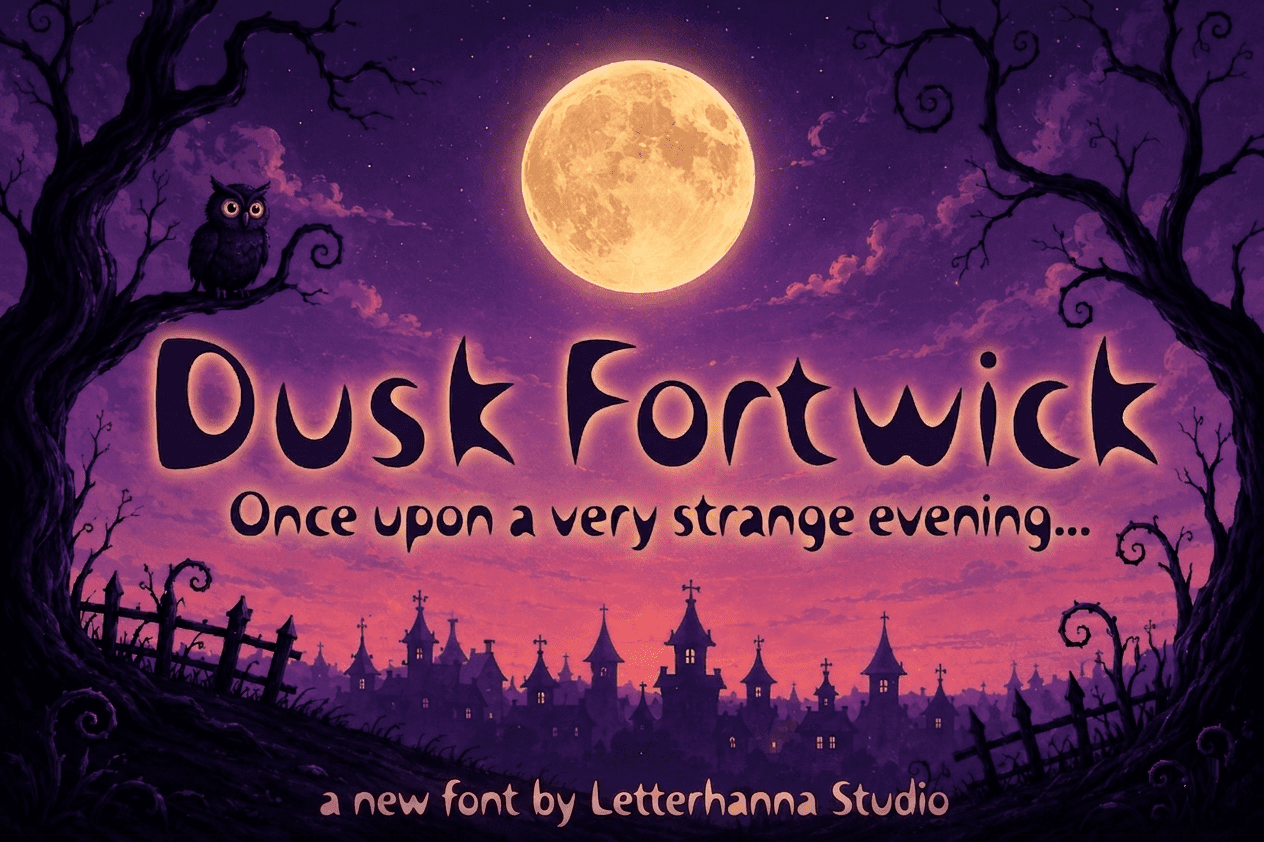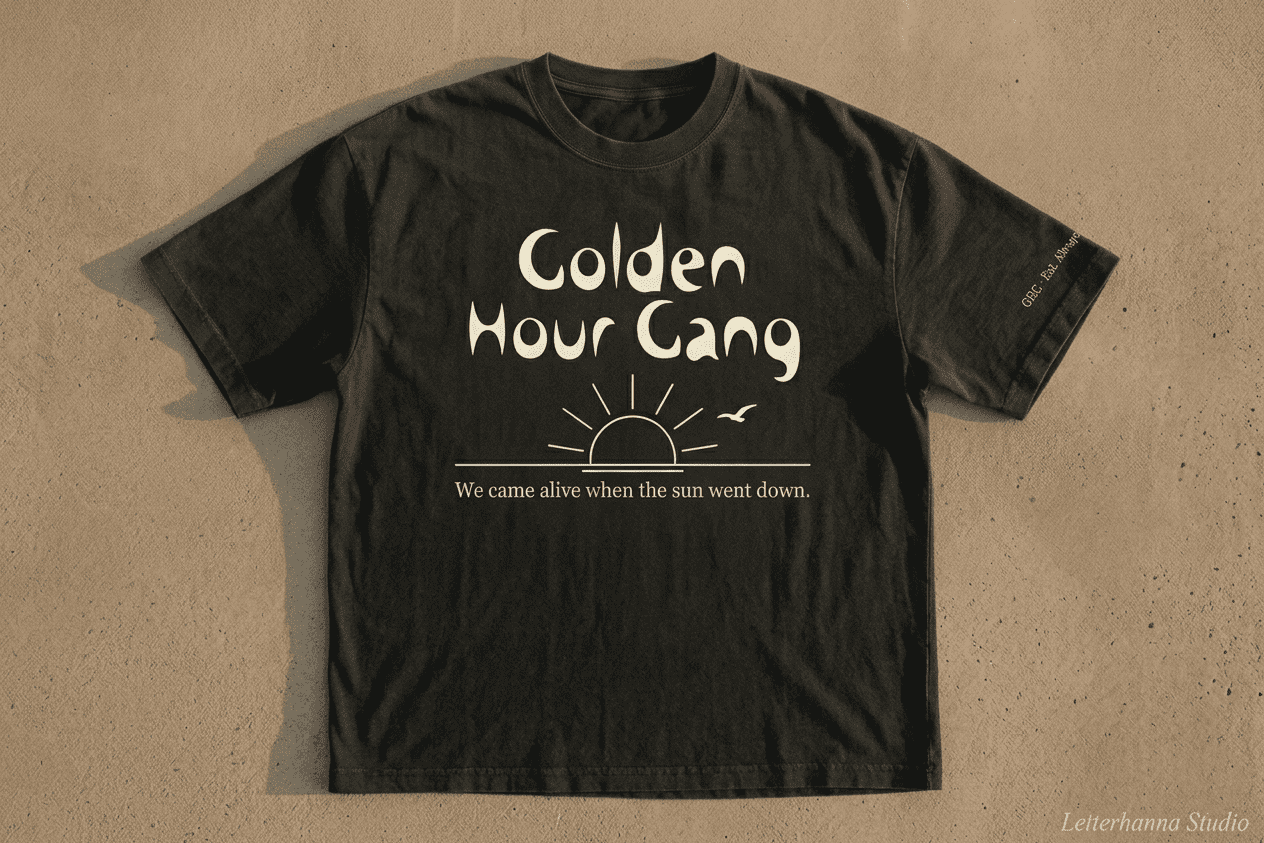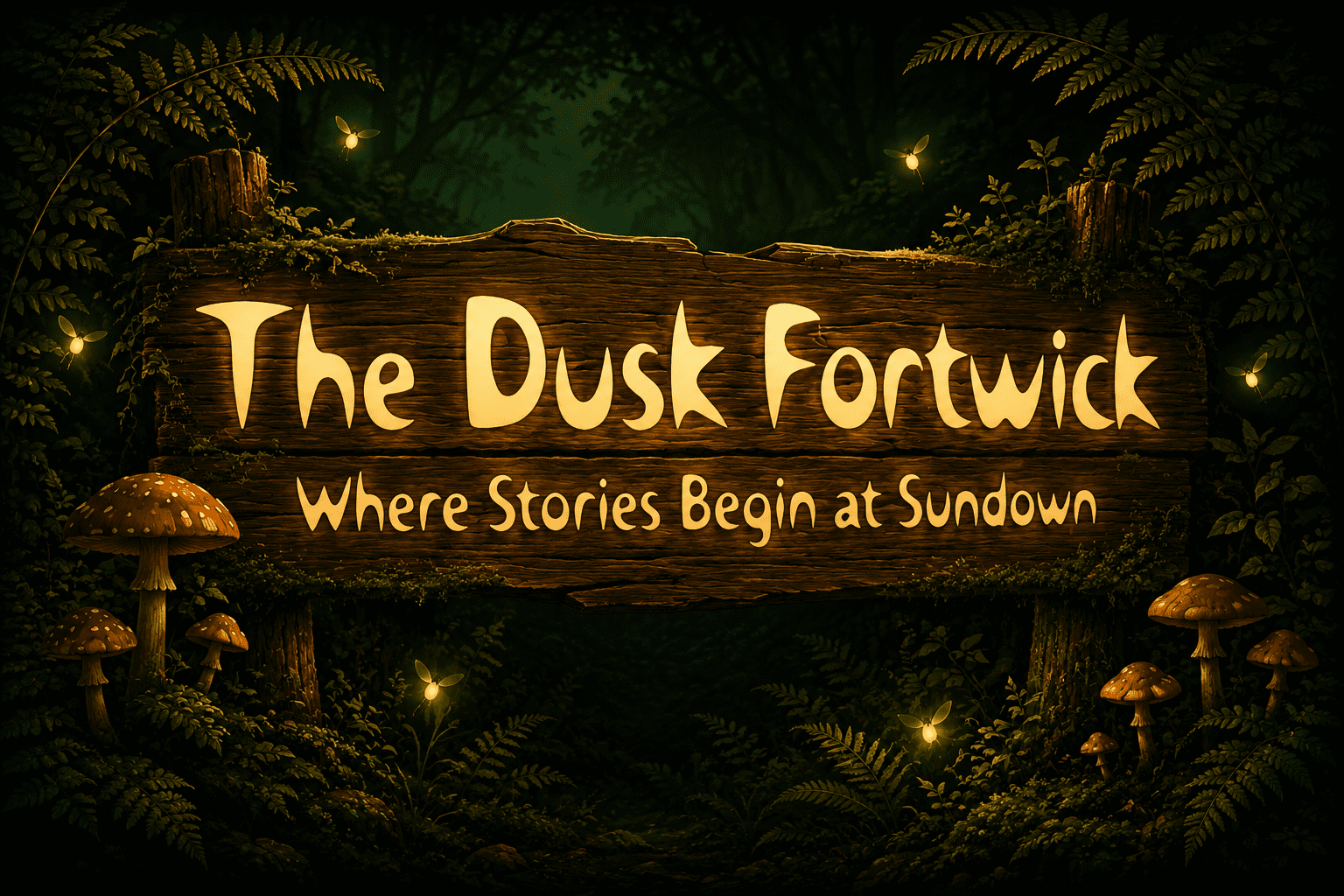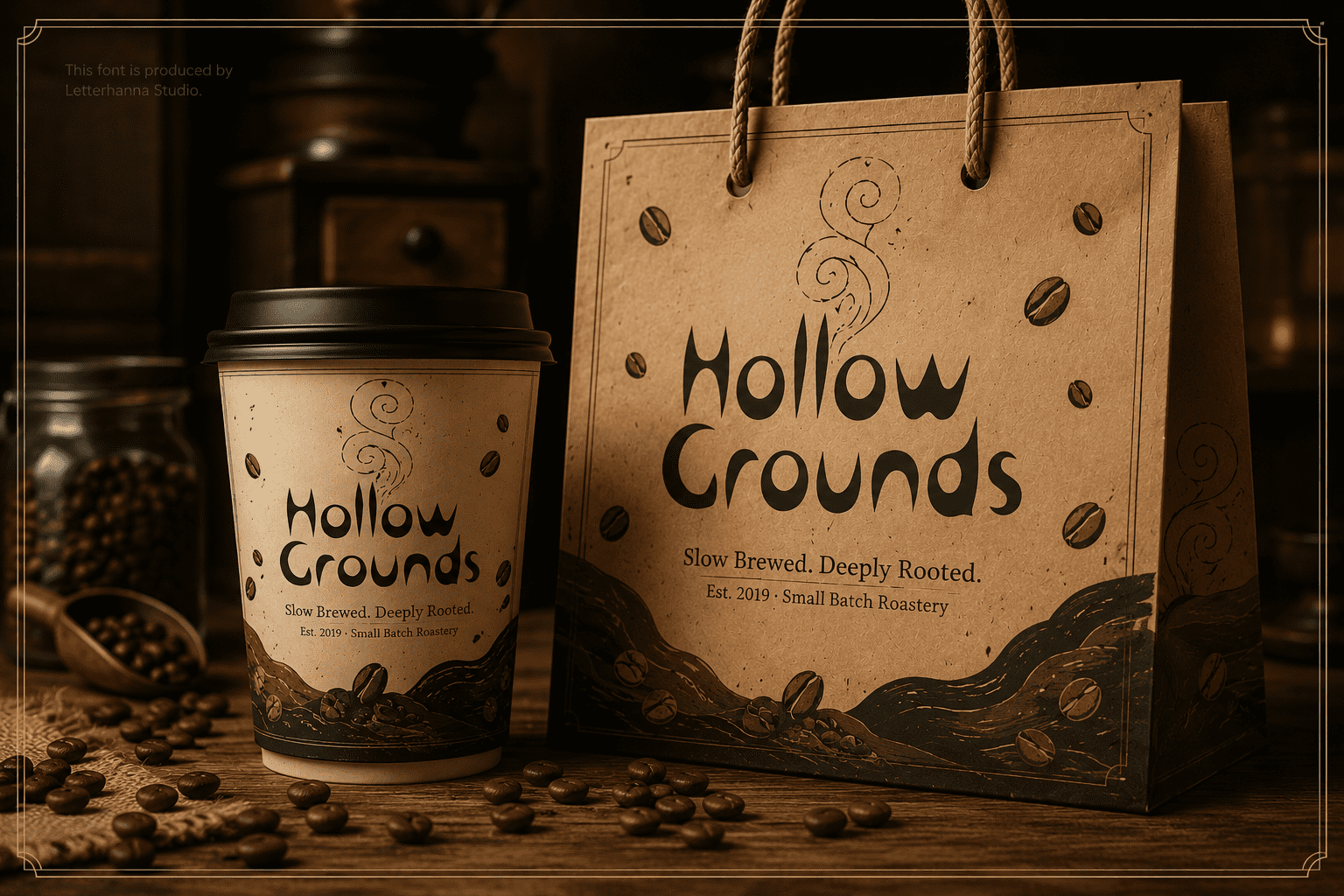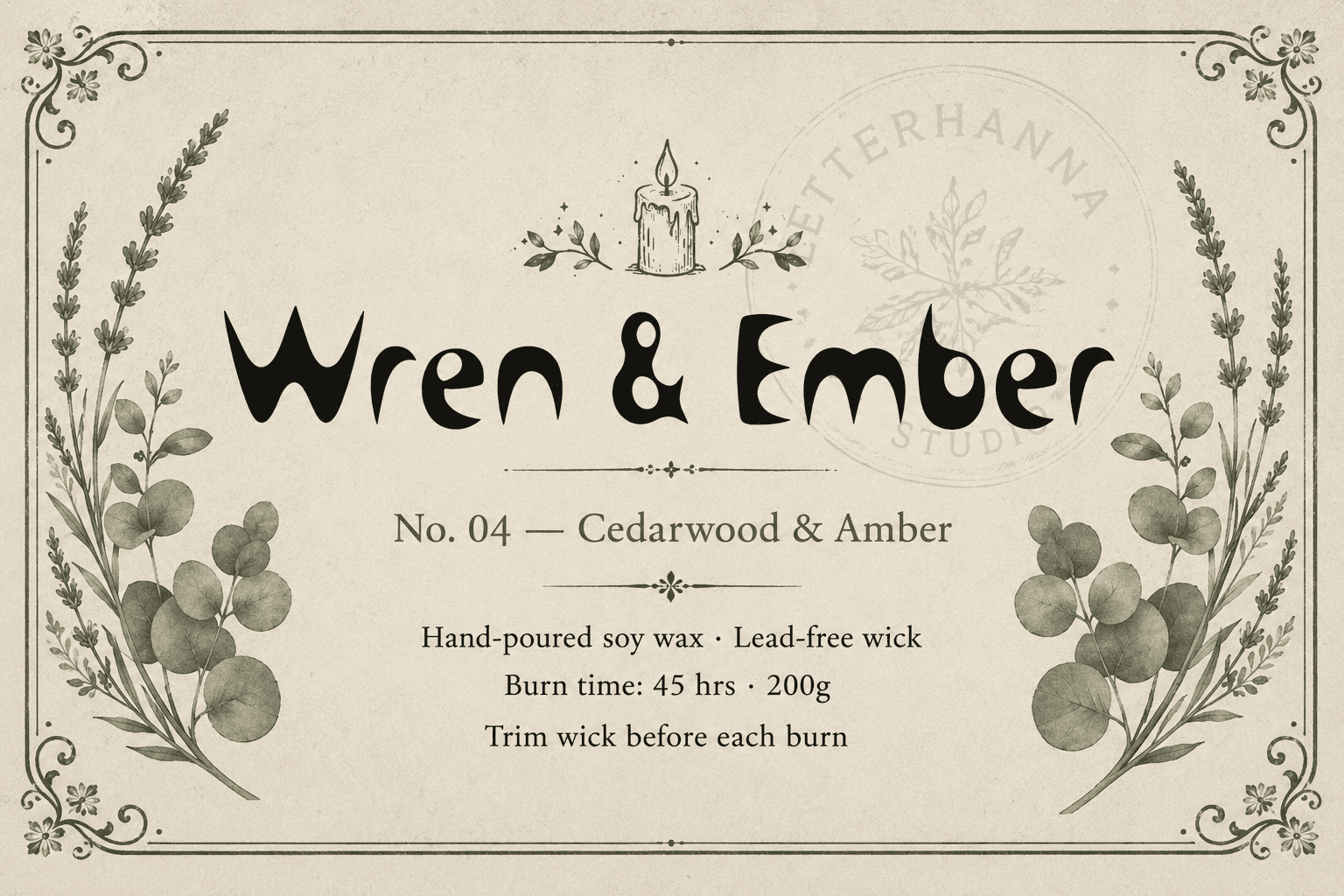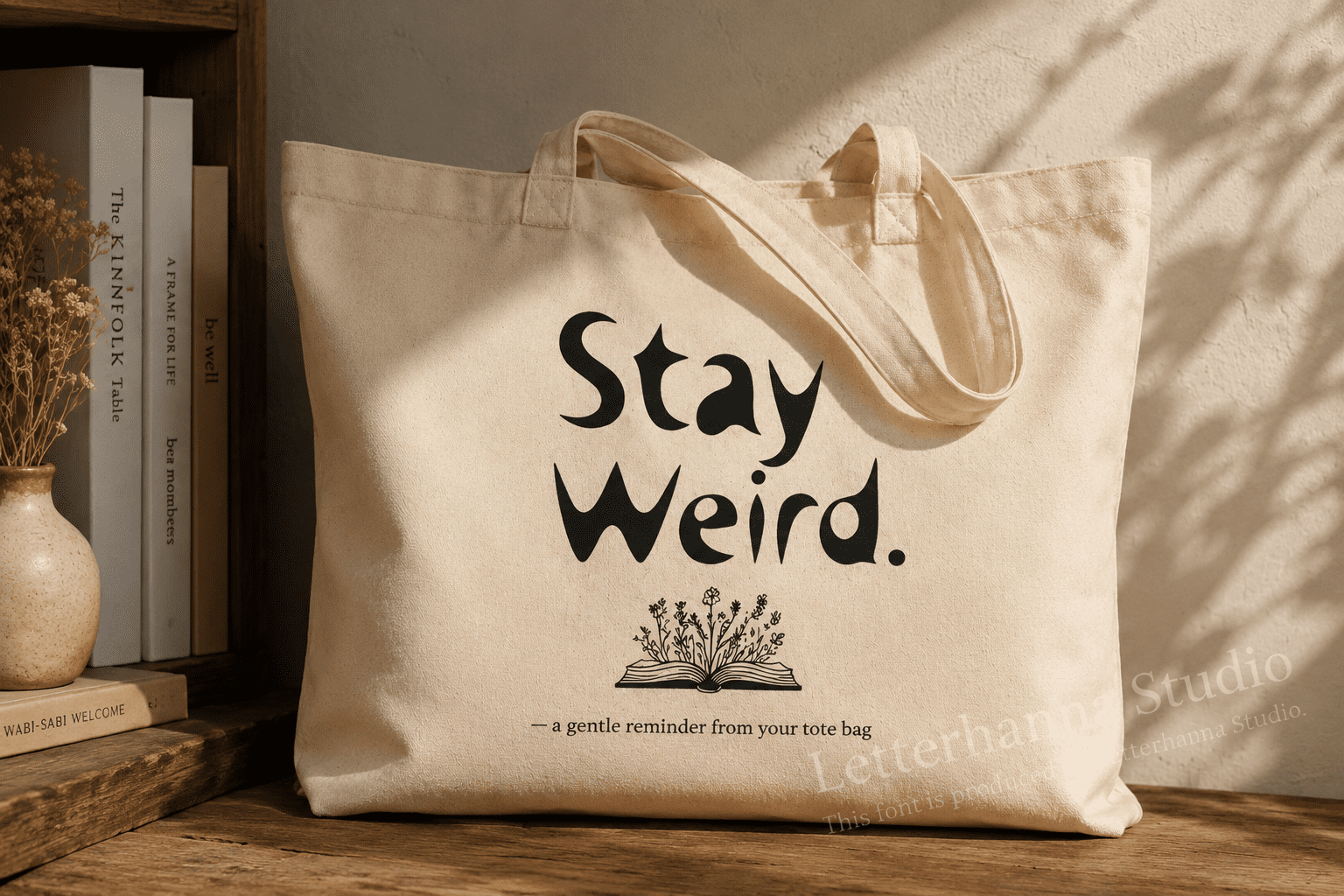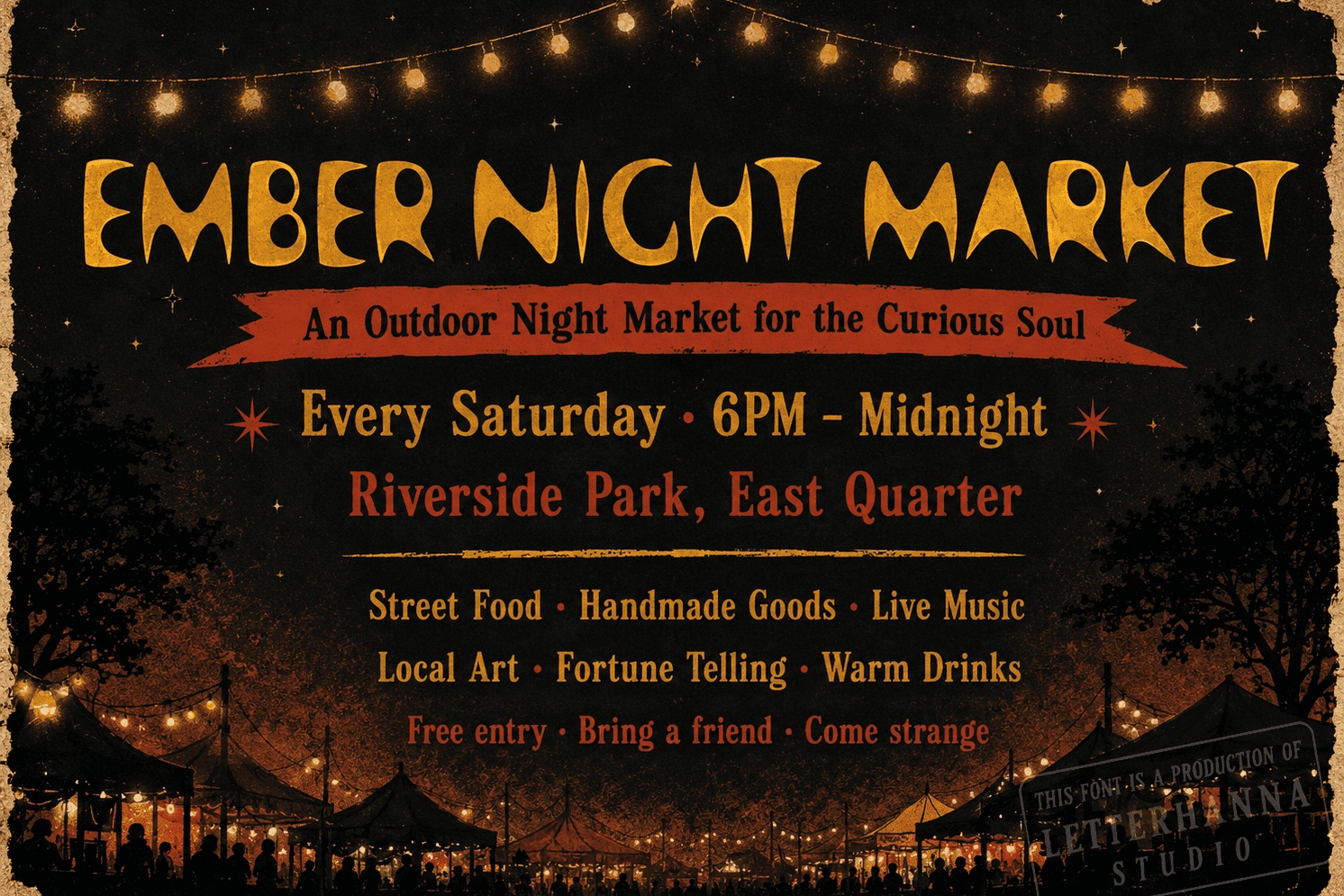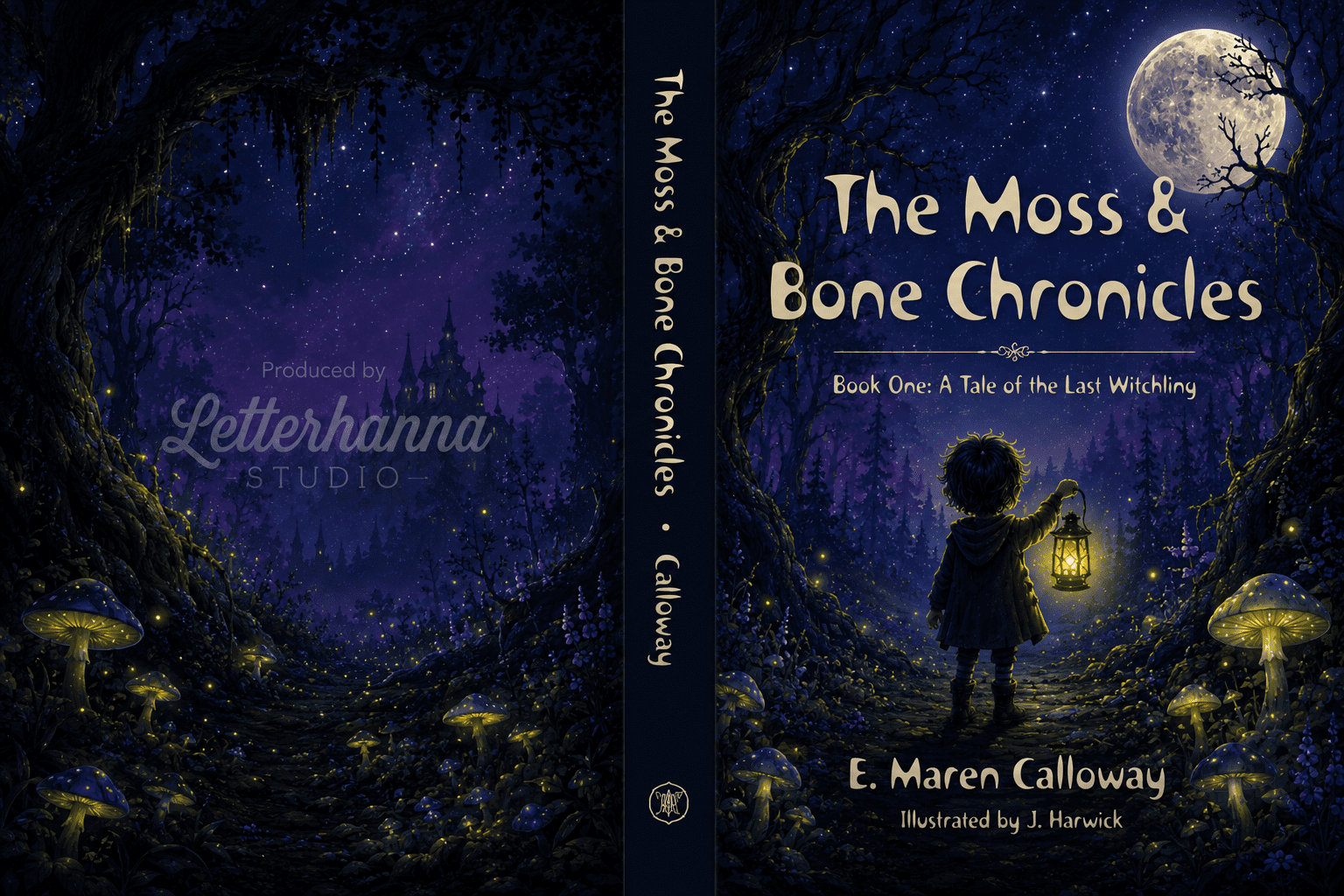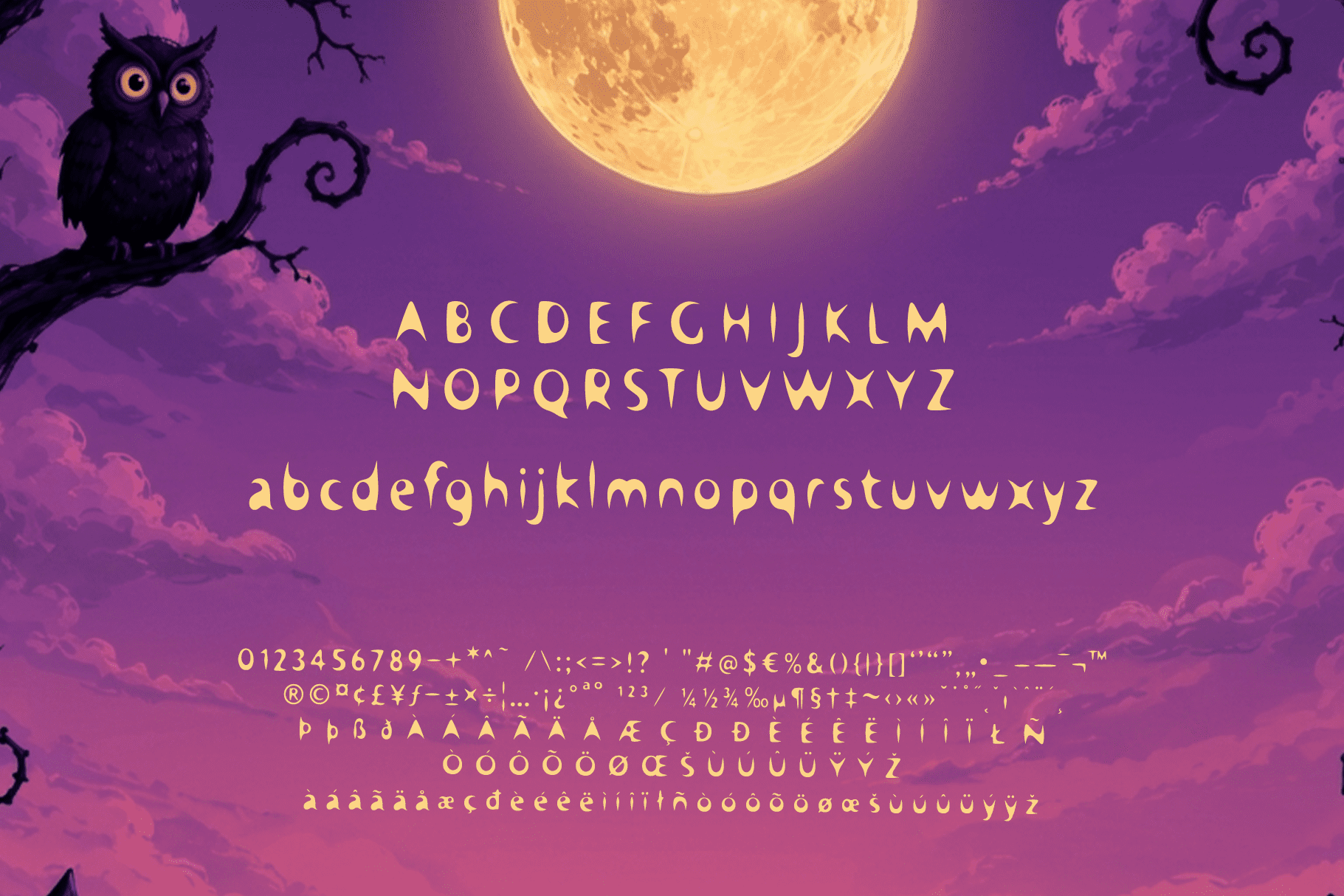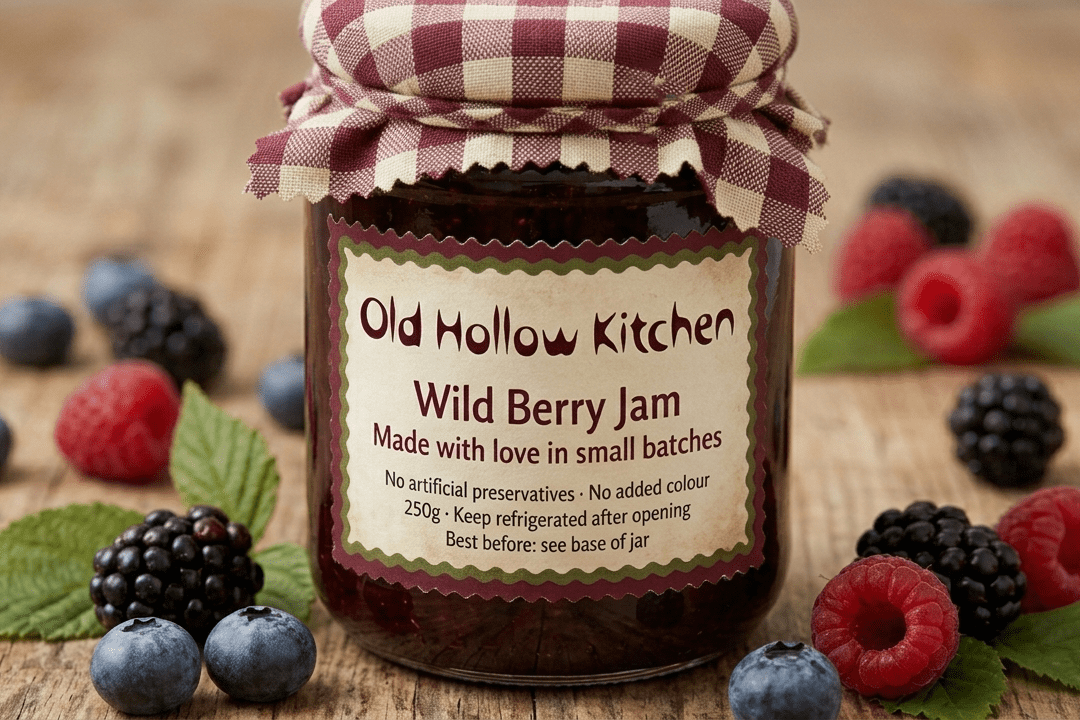
What if your letters had teeth?
Meet Dusk Fortwick — the bold display font that bites back.
This isn’t your average typeface. Dusk Fortwick was built for designers who are tired of playing it safe. Every curve swallows the light. Every terminal ends in a razor-sharp point. Every counter space pulses like something alive underneath the ink.
The secret? Extreme ink traps carved deep into each letterform — creating dramatic shadows that give every word a dark, breathing presence. Rounded yet aggressive. Heavy yet fluid. Dusk Fortwick walks the line between beautiful and unsettling, and it owns every step.
Whether you’re designing a horror game title, an edgy streetwear logo, a Halloween campaign, or an underground music brand — Dusk Fortwick delivers instant personality that no clean sans-serif ever could.
This font doesn’t whisper. It looms.
Pair it with minimal layouts for maximum impact. Set it large, set it bold, and let the ink traps do the talking. Your audience won’t just read the words — they’ll feel them.
Dusk Fortwick includes full uppercase and lowercase sets, multilingual support, and smooth vector curves optimized for both print and screen. From poster headlines to merchandise graphics, this font carries weight in every sense of the word.